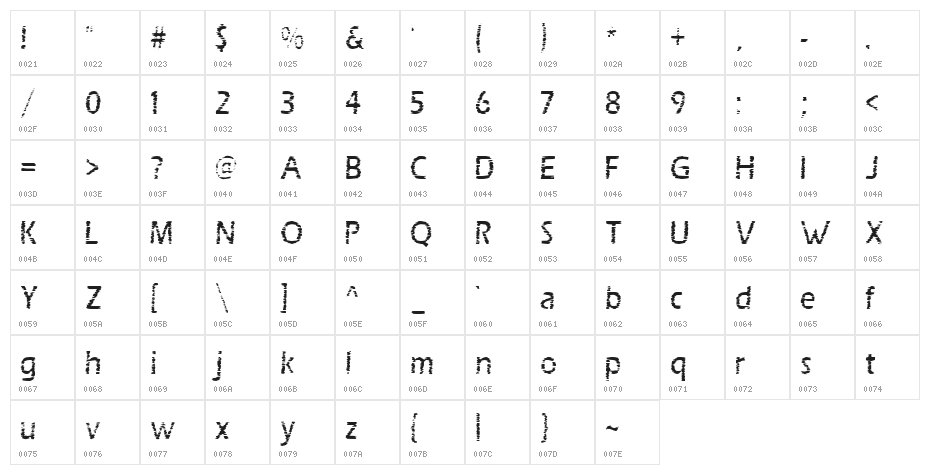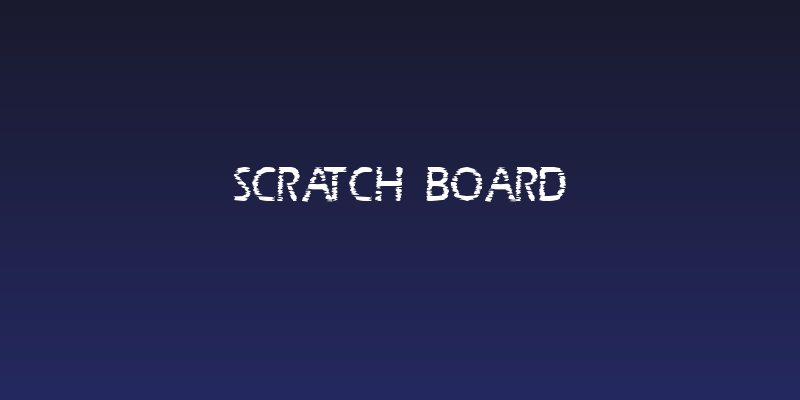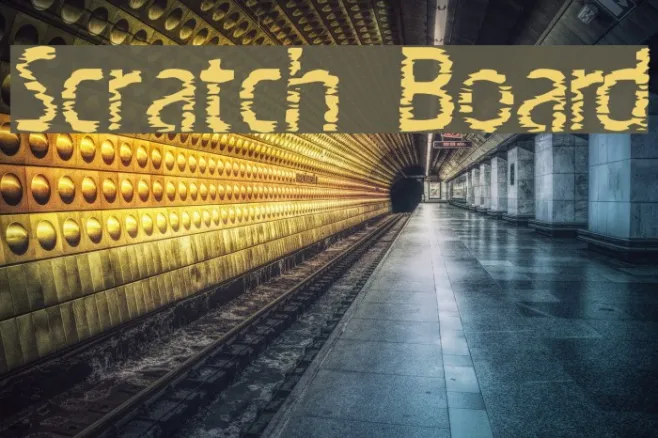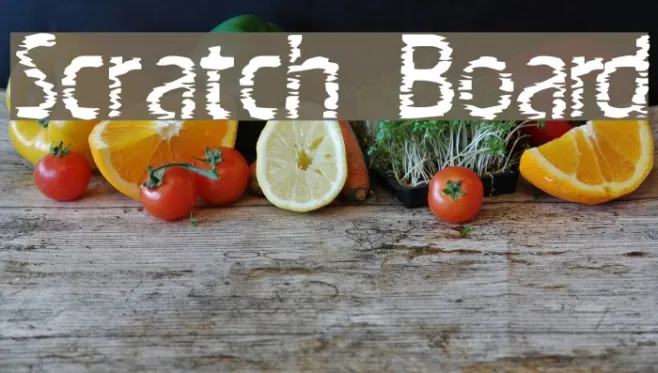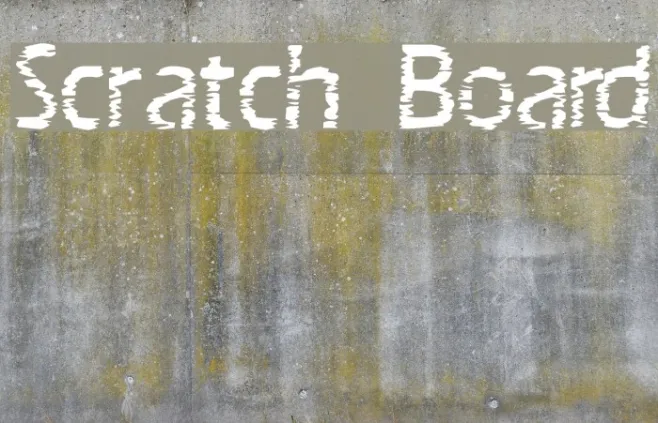
Scratch Board Font
Scratch Board Description
This font features a unique, distressed appearance, reminiscent of scratched surfaces or worn textures. The characters are bold and have a rough, uneven edge, giving them a dynamic and edgy look. The uppercase and lowercase letters maintain a consistent style, with jagged lines that create a sense of movement and energy. The numbers and special characters follow the same design, ensuring a cohesive appearance across all glyphs. This font is ideal for projects that require a gritty, urban aesthetic, such as posters, album covers, or branding for alternative or punk-themed events.
| Proposed Projects | Ideal for posters, album covers, branding for alternative events, or any project needing a gritty, urban aesthetic. |